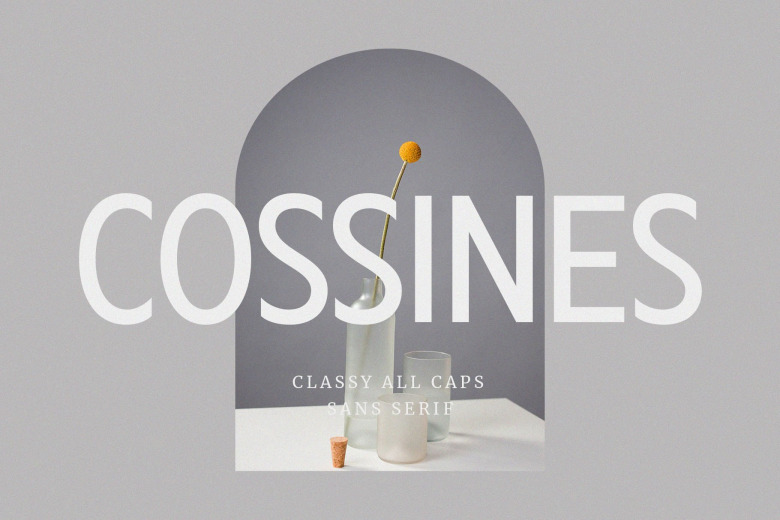
Cossines Font
Cossines is a modern & strong Sans Serif Font. 3. Lato : A very flexible moderm font easy to read not only in large size but also in small size too. Although Guess What Font can use for display but guess what is excellent using as a display font in : letterhead, logotype designer.
Fashion design stuff such as magazines and advertising material. you can also use best in packaging of products and invitations etc. “The Cossines white with its clean lines and smooth curves adds extra sophistication to your next project.”
Cossines Sans Serif Font